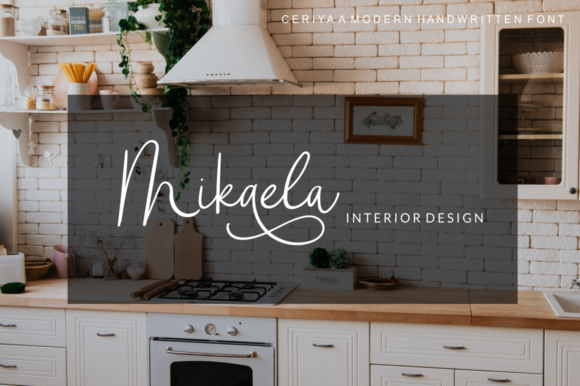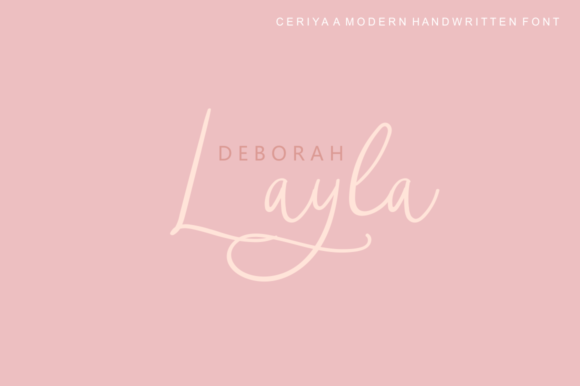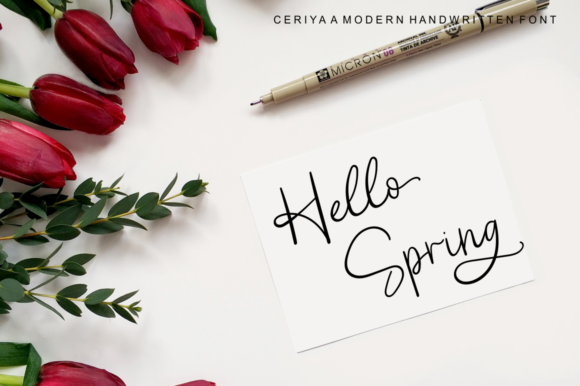
The Ceriya Font: A Timeless Handwritten Treasure
I’ll never forget the design project that led me to discover the Ceriya font. I was working on a wedding invitation suite for a client who wanted something elegant, yet playful. I had spent hours browsing through font libraries, but nothing seemed quite right. That was when I stumbled upon Ceriya, and it was love at first sight! 💕
Ceriya is an incredibly distinct, delicate, and timeless handwritten font that has become a staple in my design toolkit. It looks stunning on wedding invitations, thank you cards, quotes, greeting cards, logos, business cards, and every other design that needs a handwritten touch.
- ✨ Delicate and elegant strokes that add a touch of sophistication to any design
- 💫 Unique character set that stands out from more traditional fonts
- 🎨 Versatile and works well with a variety of design styles
While Ceriya is an amazing font, there are a few things to keep in mind: 🤔
- ⚠️ Some characters may not work well in all design programs (more on this later)
- ⚠️ Limited availability of certain OpenType features
Ceriya was designed with love and care by a talented font designer who wanted to create a unique, handwritten font that would inspire creatives to make beautiful things. The designer’s passion for calligraphy and lettering shines through in every stroke of Ceriya.
Q: What makes Ceriya so special?
A: Ceriya’s unique character set, delicate strokes, and elegant feel make it a standout font that’s perfect for adding a touch of sophistication to any design.
Q: Does Ceriya support OpenType features?
A: Yes, Ceriya supports some OpenType features, including stylistic alternates and glyphs. However, the availability of these features may vary depending on the design program you’re using.